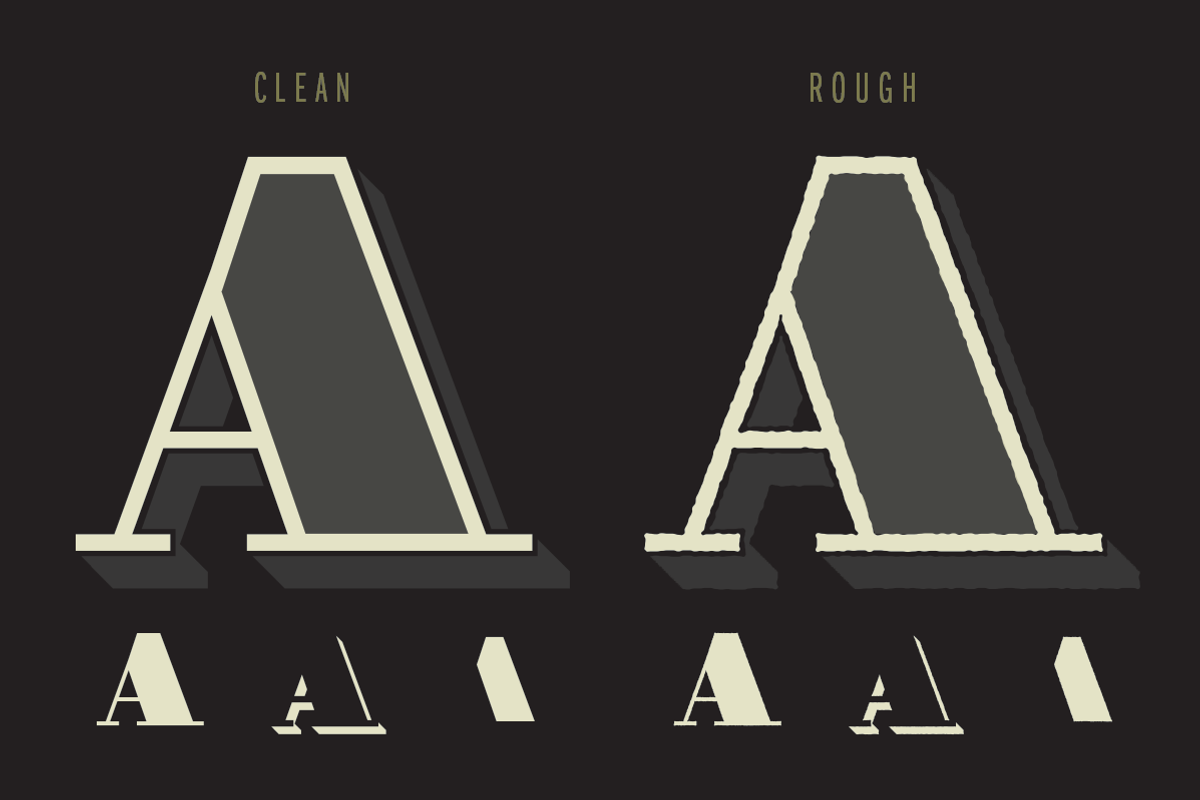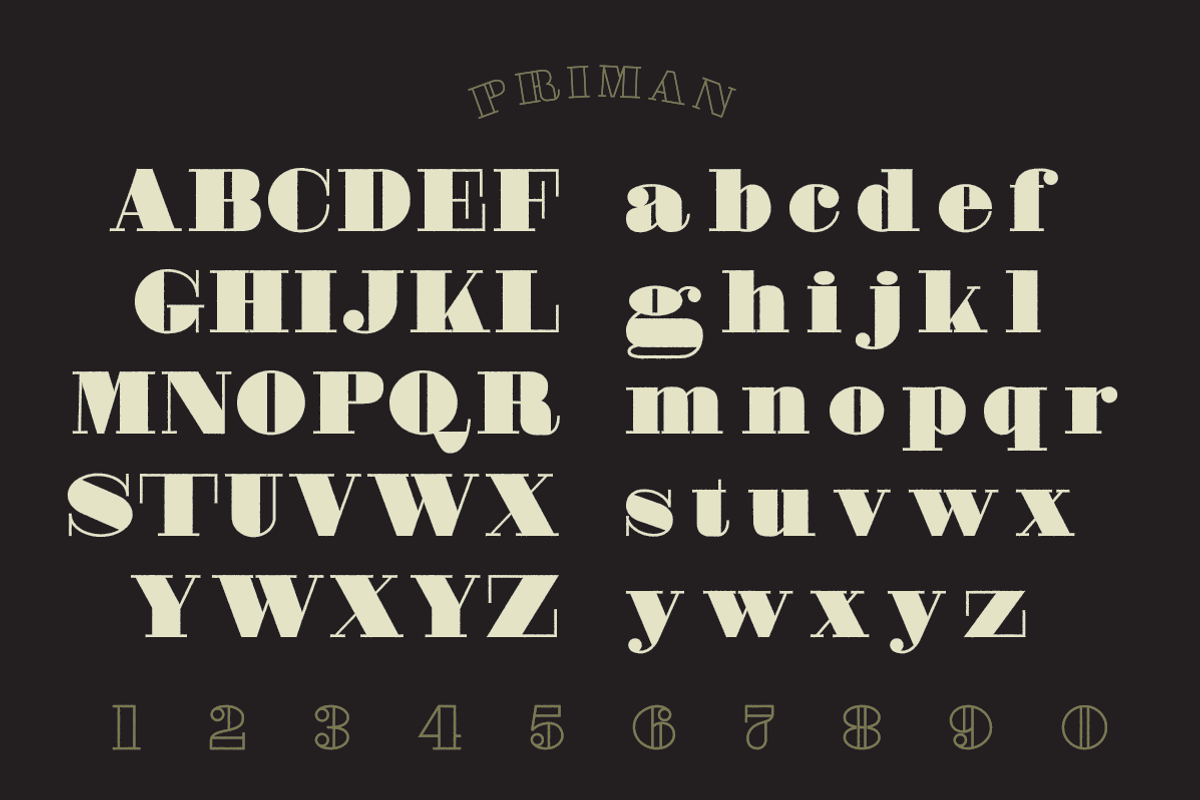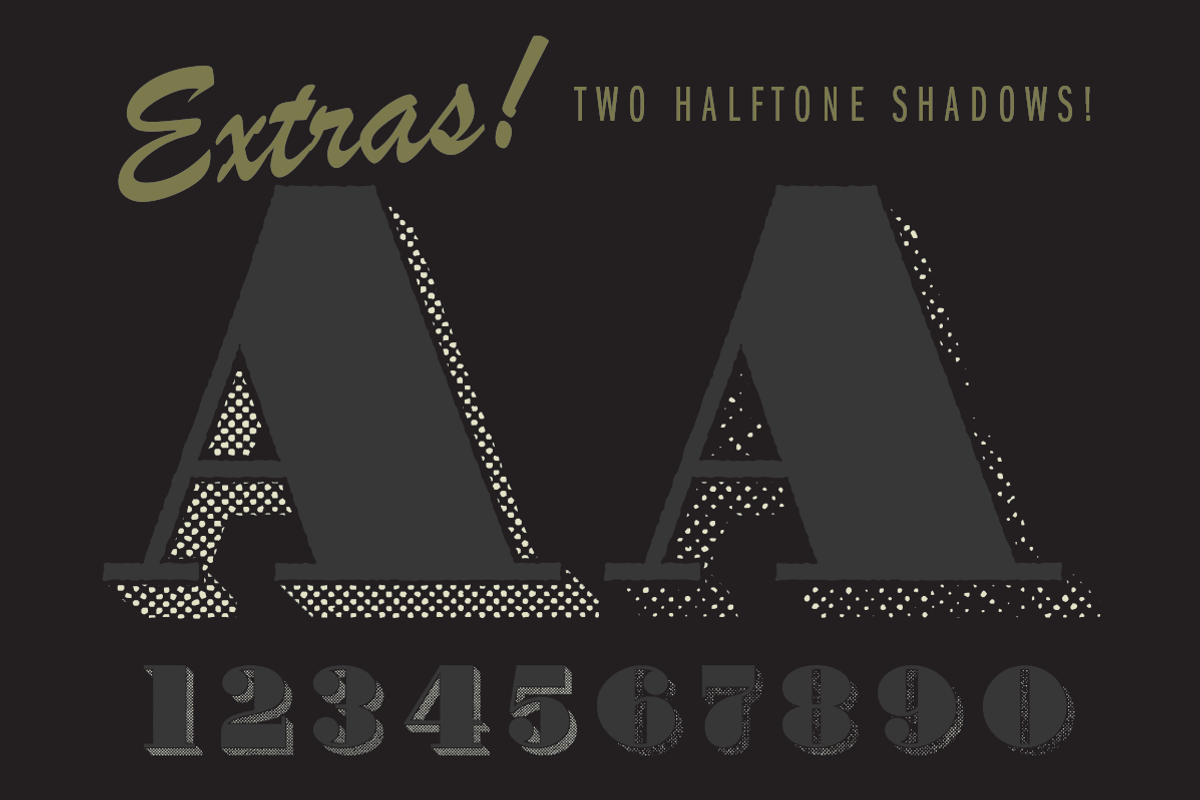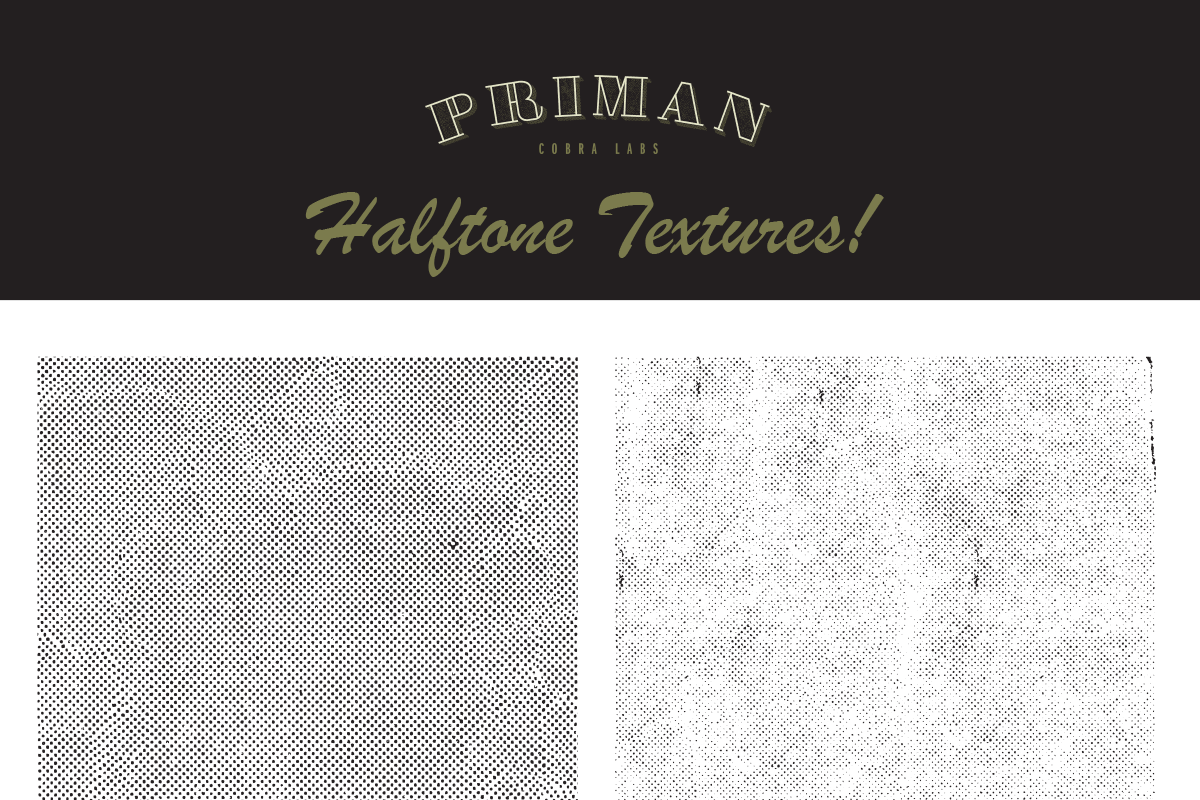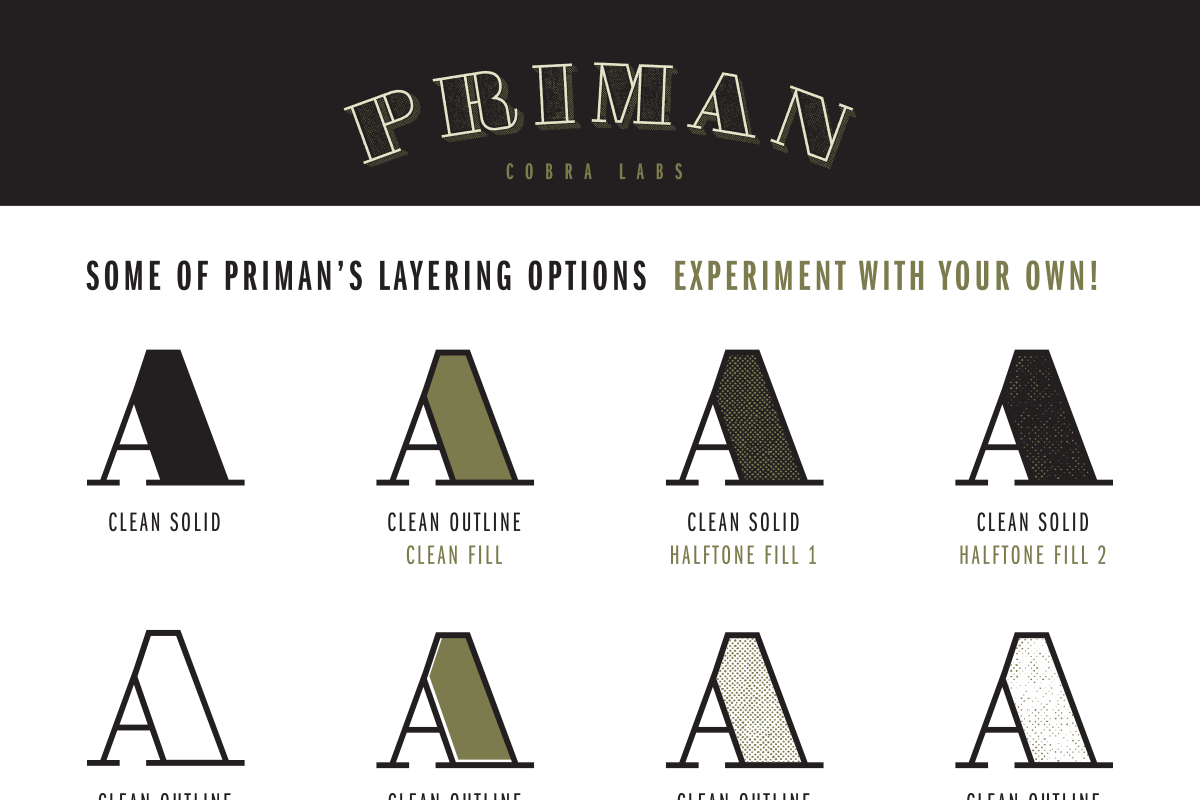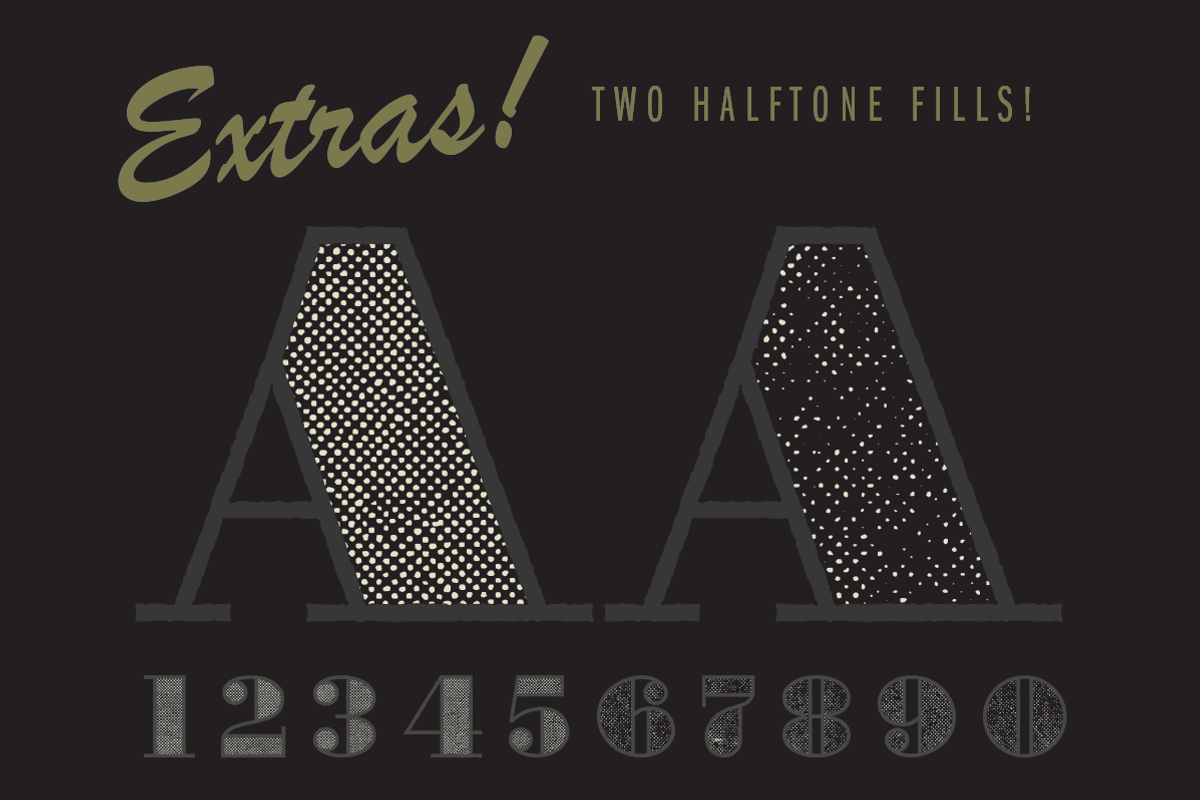
Priman Layered Display Font
Priman Layered Display Font by Cobra Labs is a font selected for branding, posters, packaging, typography.
- Priman Clean includes 4 fonts: Solid, Outline, Fill, and Shadow, with sharp clean edges.
- Priman Rough also includes Solid, Outline, Fill, and Shadow, but with slightly roughed up edges that will show best at larger sizes.
- Priman Extras includes 2 distressed halftone fills and 2 distressed halftone shadows.
- I've included a guide with some layering ideas, but there are many more possibilities.
Priman Layered Display Font by Cobra Labs fits naturally into Branding, posters, packaging, typography.